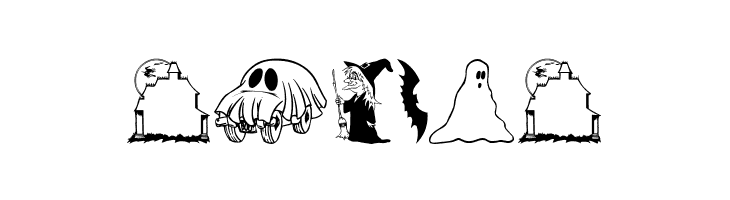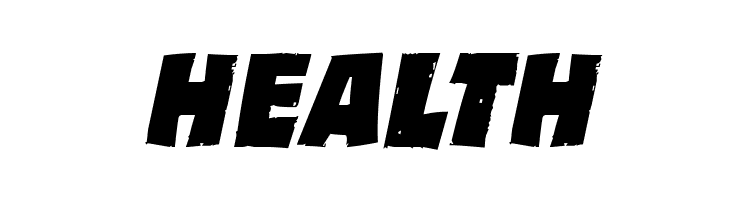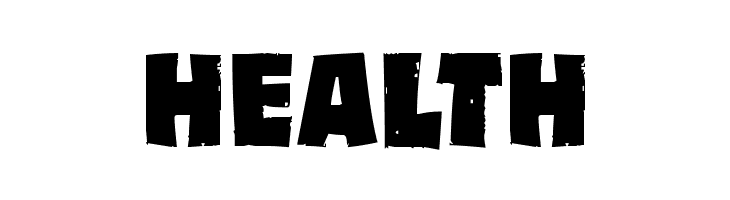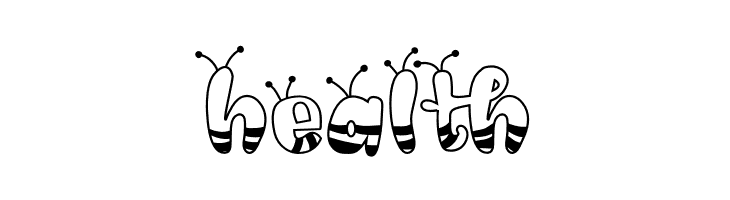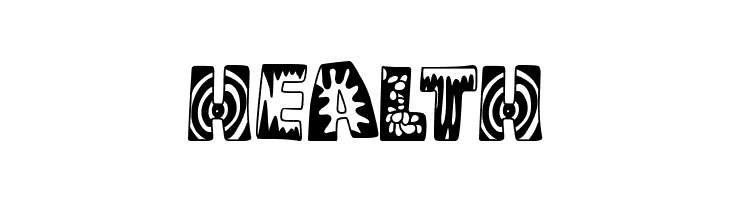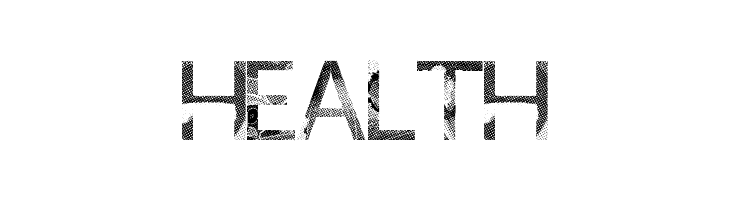
A collection of playful Halloween-themed illustrations replacing traditional characters.
( Fonts by Joseph Dawson )
A bold, playful font with a distressed, hand-cut appearance.
( Fonts by Joseph Dawson )
A bold, italicized font with a distressed, playful style.
A playful, bold font with unique patterns and textures in each character.
( Fonts by Kong Font )
A playful, bee-themed font with rounded, whimsical characters.
( Fonts by Maurice The Hormone Monster AUTTP )
A bold, distressed font with a textured, worn appearance.